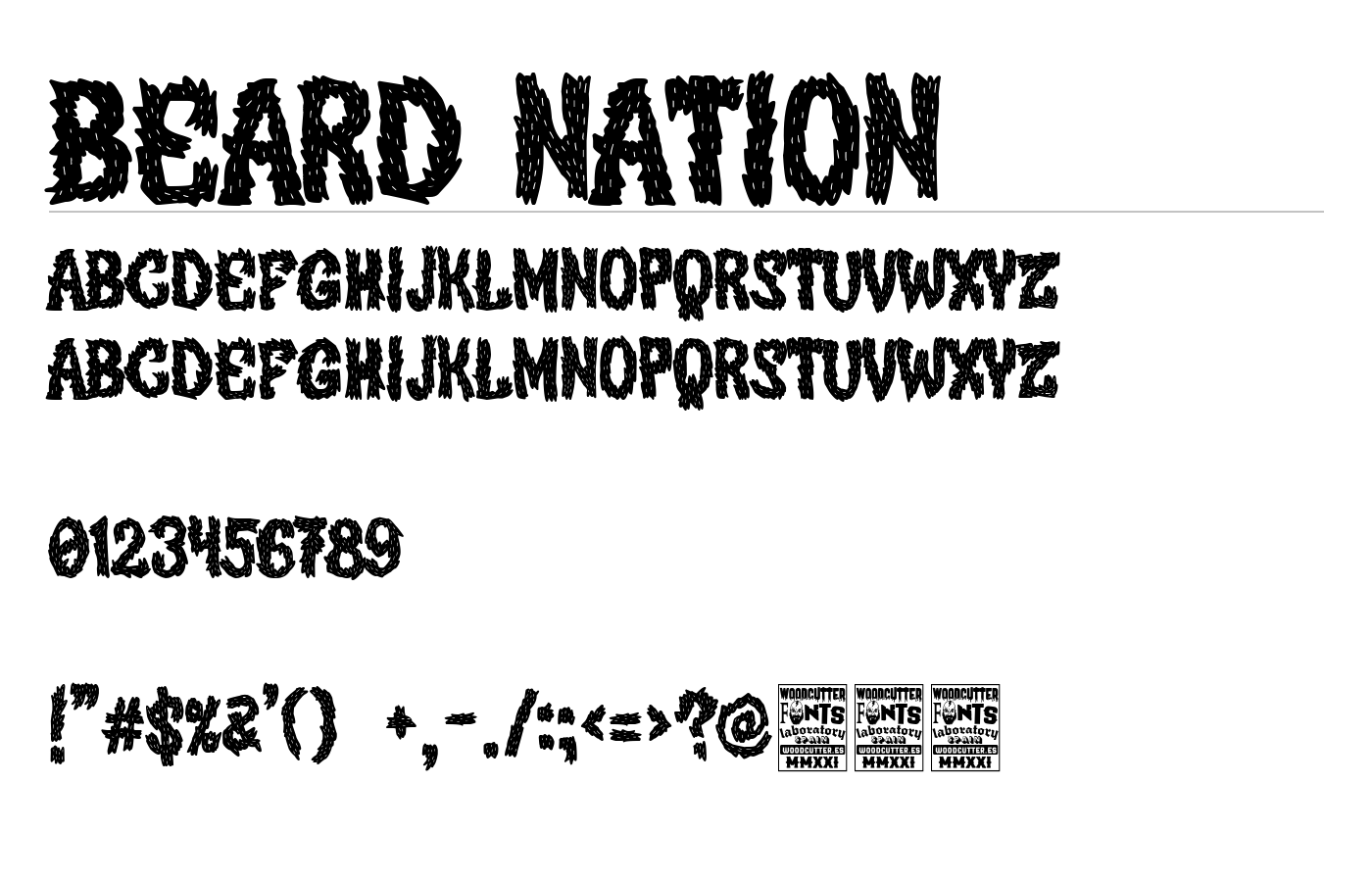
Beard Nation is a bold, textured display font with a playful and rugged personality, featuring uppercase letters that appear hand-crafted with rough, beard-like strokes. Its heavy weight and irregular shapes give it an energetic, quirky vibe, making it ideal for projects that want to convey a fun, adventurous, or outdoorsy feel. This font works best in logos, posters, and branding where bold, eye-catching impact is needed rather than for lengthy text.
Beard Nation Font
About Beard Nation Font